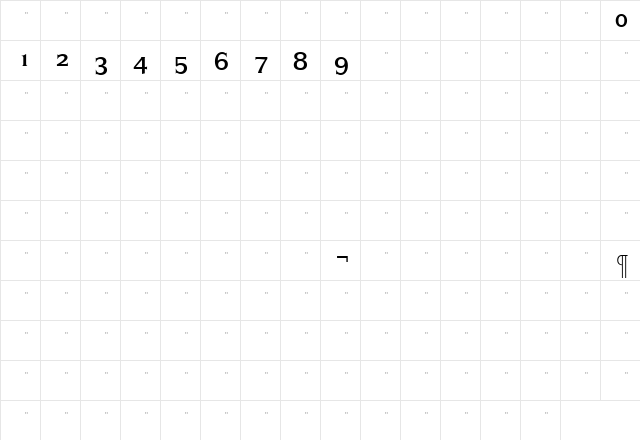
SilveradoMediumOldStyleFigures Roman
Design Context for SilveradoMediumOldStyleFigures Typeface
SilveradoMediumOldStyleFigures carries the refined structure of traditional serif typography, with bracketed terminals and considered proportions that communicate credibility and craft.